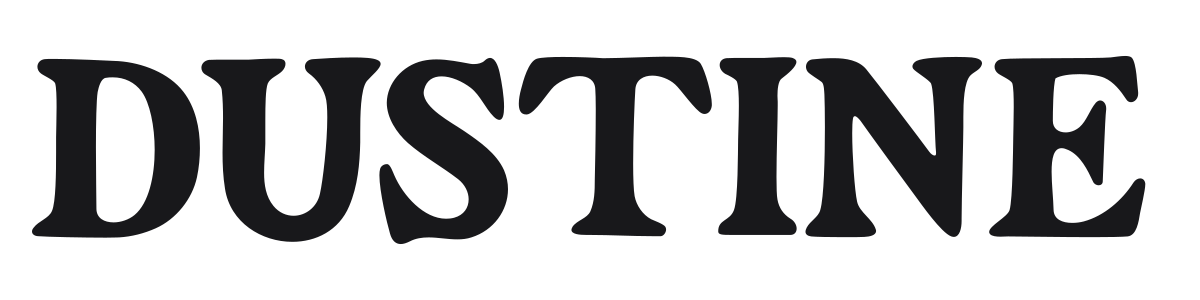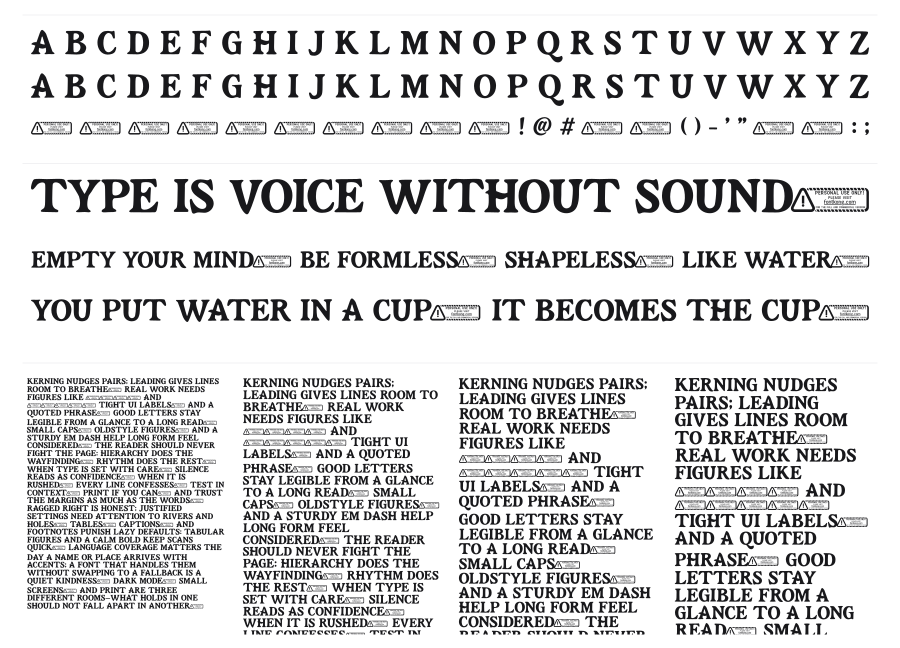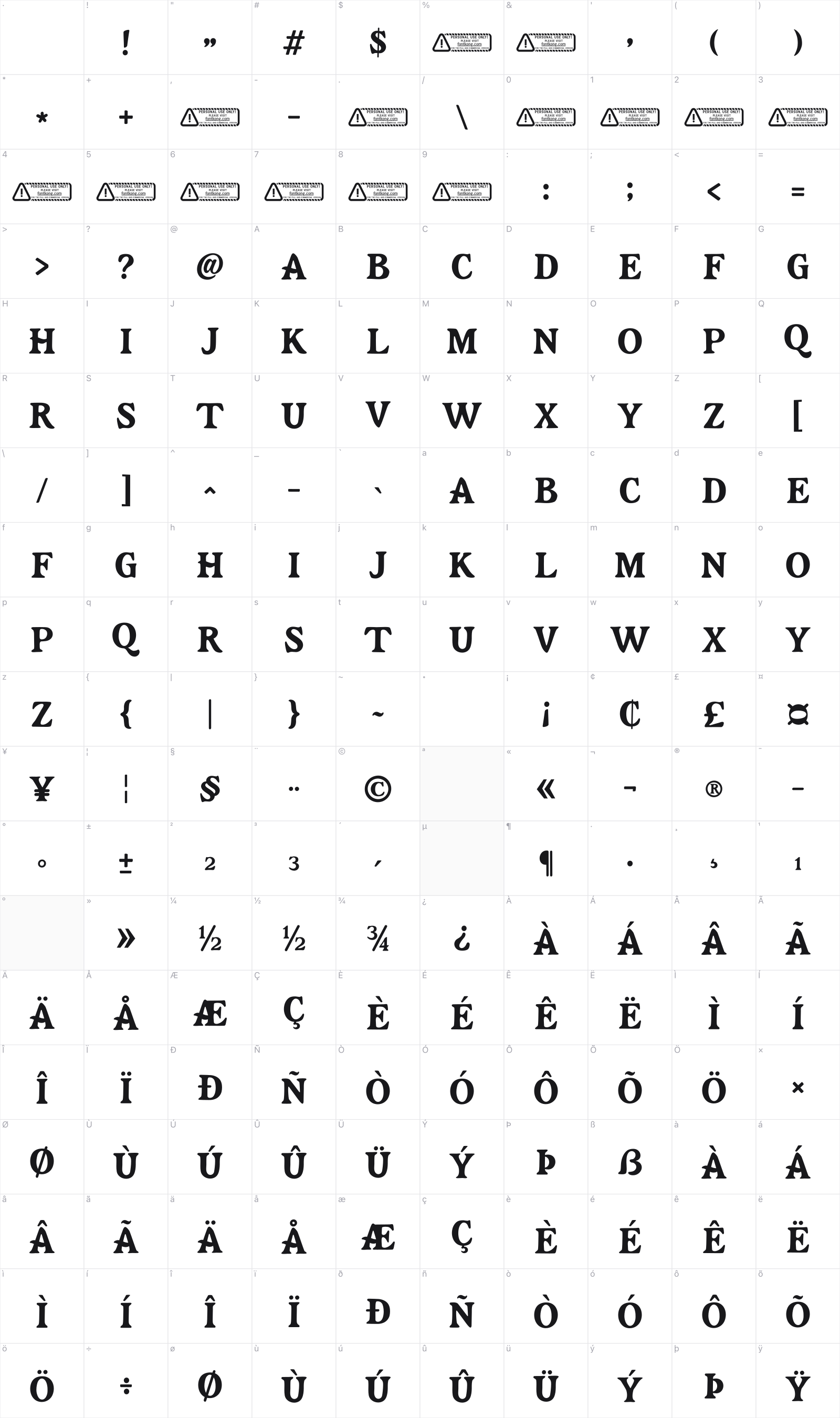
Dustine
Dustine is a bold, high-contrast serif with wide proportions and a classy editorial presence. The interplay between thick stems and hairline strokes gives it the dramatic weight of a fashion headline, while bracketed serifs and slightly organic terminals keep it from feeling cold. It suits branding, editorial covers, and any context that calls for confident elegance.